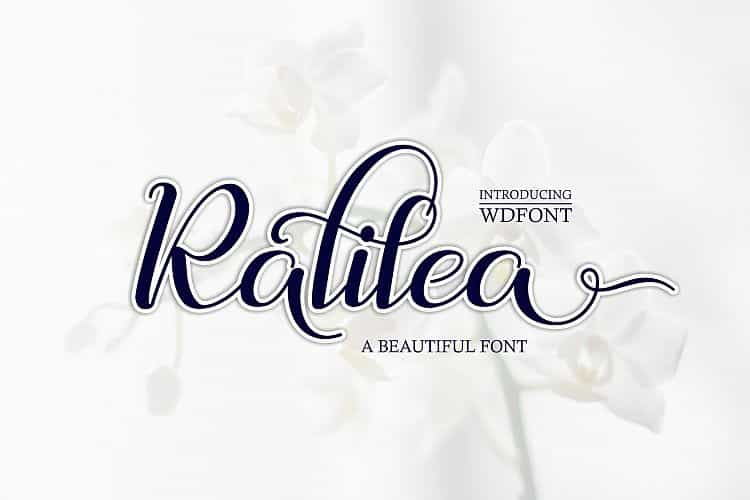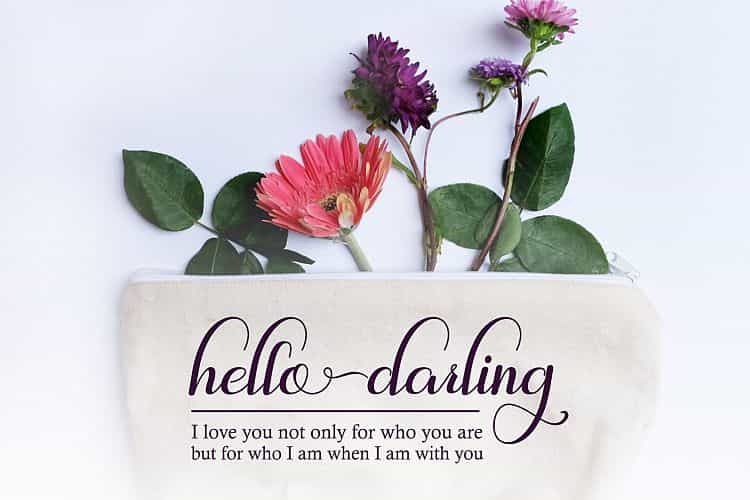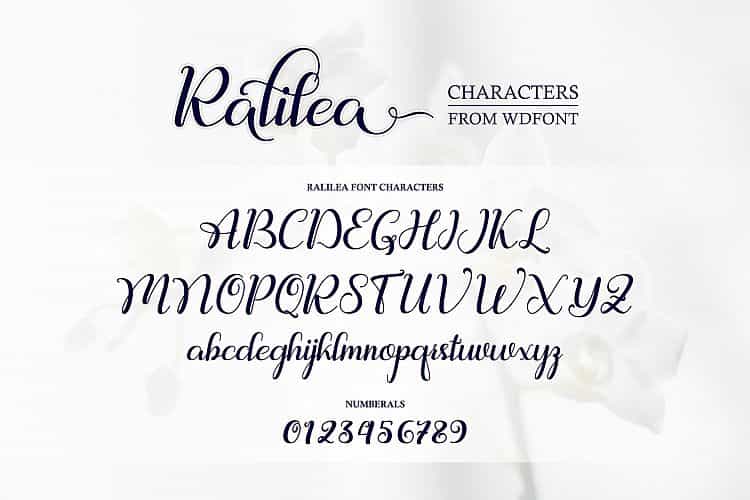
Introducing Ralilea Font. Ralilea Script Font is a lovely, flowing handwritten font that is ideal for projects requiring a classy headline font. This font has swashy alternates and is ideal for printed materials. Ralilea is the best for many types of projects such as logos & branding, invitation, stationery, wedding designs, social media posts, advertisements, product packaging and design.